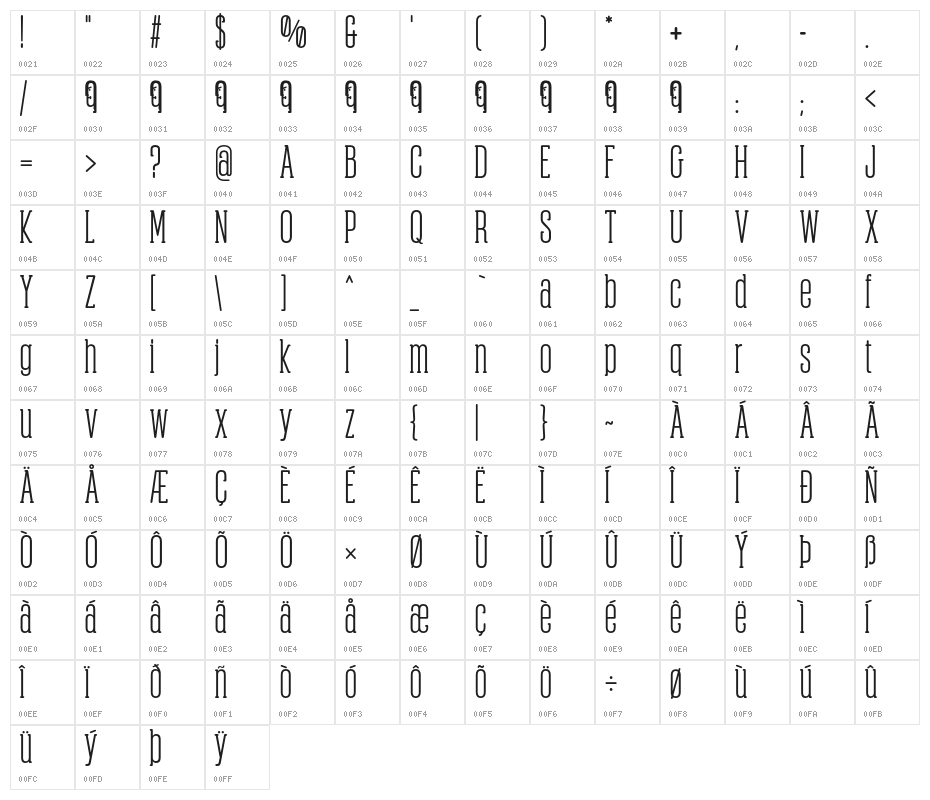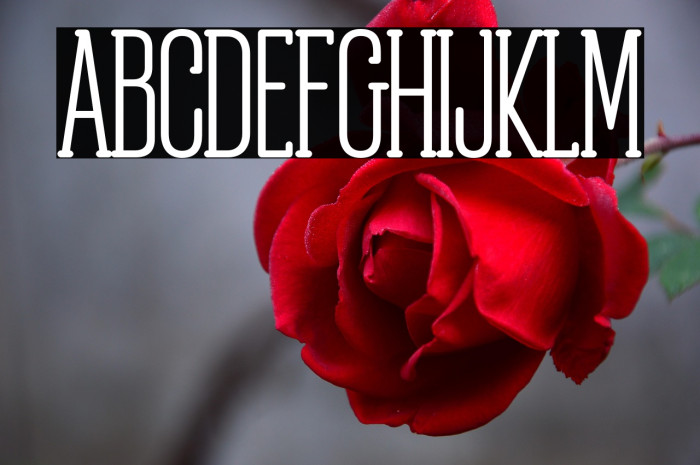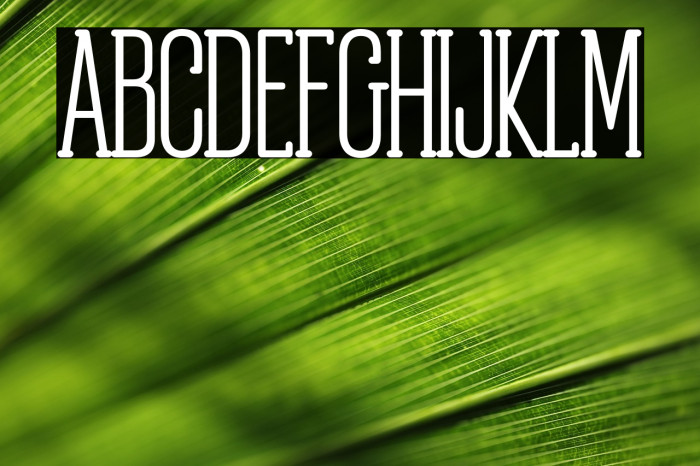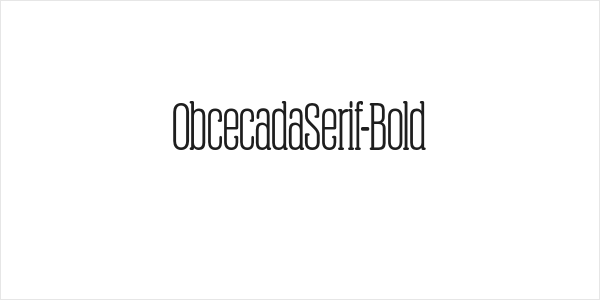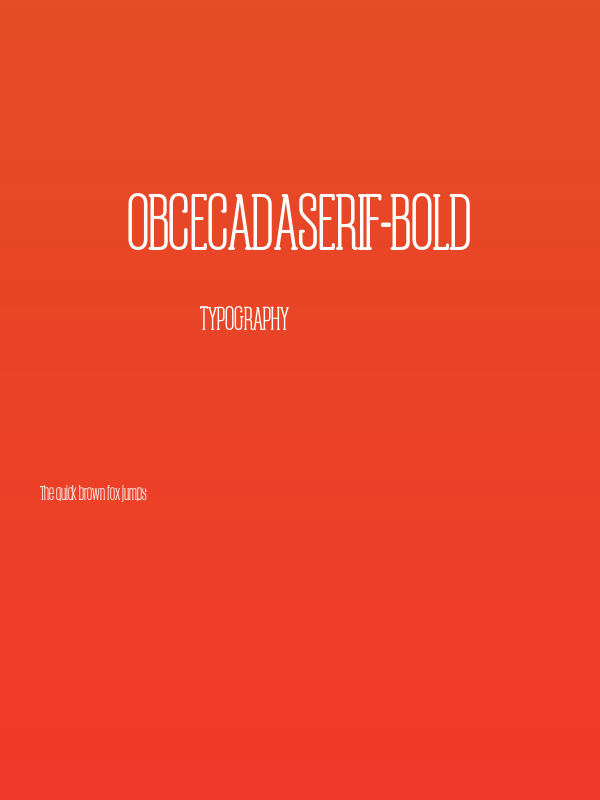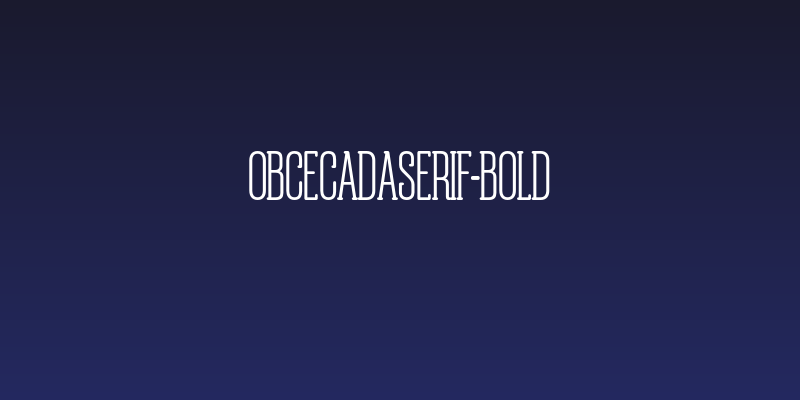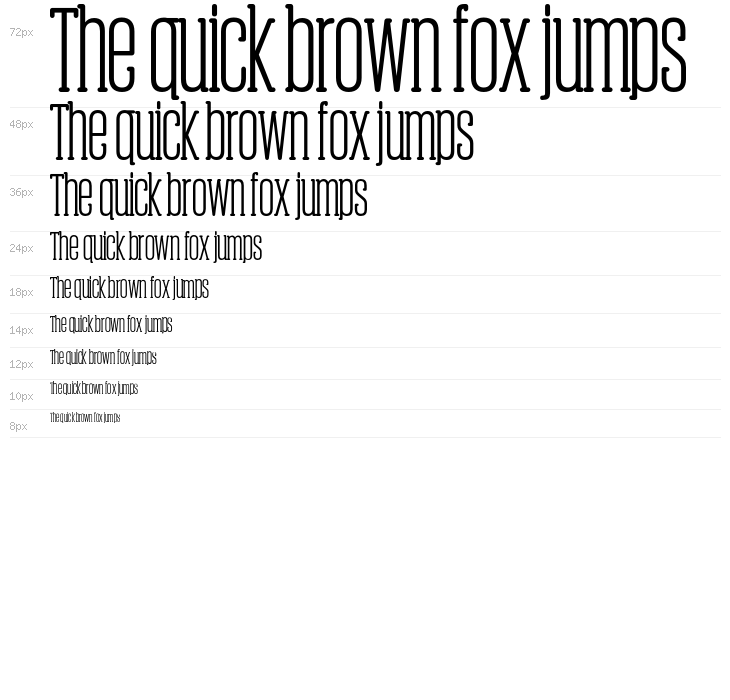
ObcecadaSerif-Bold Font
ObcecadaSerif-Bold Description
This font features a bold and elongated serif style, characterized by its tall, narrow letterforms and distinct serifs that add a touch of elegance. The uppercase letters are particularly striking, with a vertical emphasis that gives them a commanding presence. The lowercase letters maintain the same narrow structure, ensuring consistency across the typeface. Numbers and special characters are designed to complement the overall aesthetic, with a similar boldness and attention to detail. The font's unique style makes it suitable for projects that require a strong visual impact.
| Proposed Projects | Ideal for headlines, posters, branding, and editorial design where a strong, elegant presence is desired. |